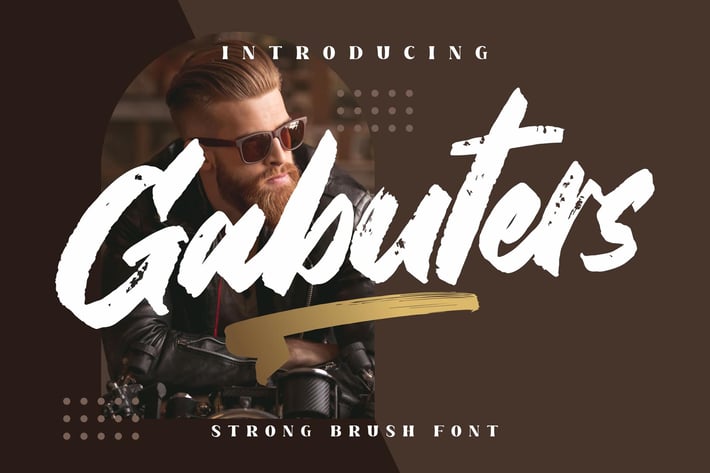
Gabuters Brush Font
Gabuters Brush Font is a bold and energetic handwritten brush font that radiates strength and character. Designed with raw, expressive strokes, it captures the essence of authenticity and confidence. Perfect for projects that demand a strong visual presence, this font balances rugged edges with stylish movement for a truly dynamic appeal.
Natural brush texture with bold character strokes
Includes uppercase, lowercase, numerals, and punctuation
Suitable for print and digital designs
Works perfectly in large display sizes
Branding and logo design
Apparel and merchandise typography
Music album covers and posters
Streetwear and lifestyle promotions
* Social media posts with bold, edgy themes
Make a statement with Gabuters — the brush font that brings raw attitude and bold confidence to every word.